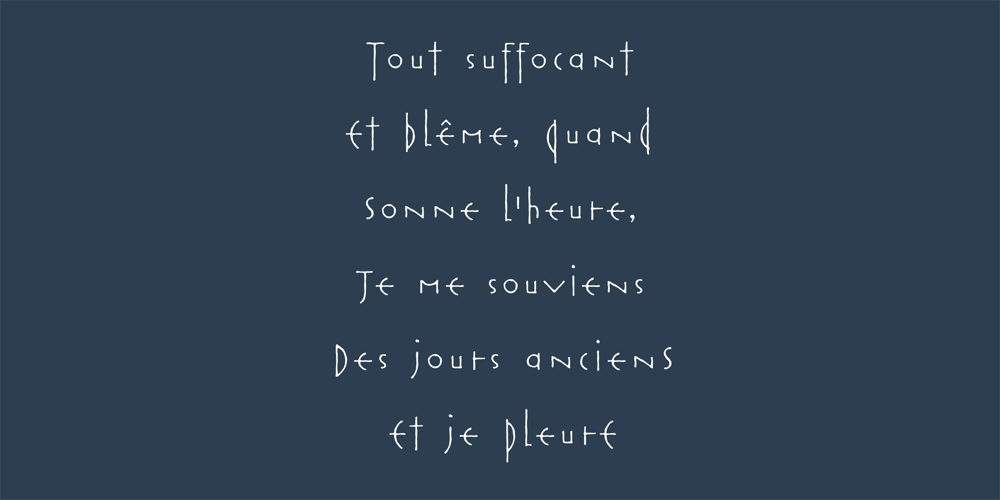
Rouge Font Family was designed by Ryoichi Tsunekawa and published by Dharma Type. Rouge contains 2 styles and family package options. This unique font has been designed and is based on lip rouge on windscreen. But it inspires a different feeling for different people; e.g. Organic, mathematical or ancient. Rising Star on April 2008.